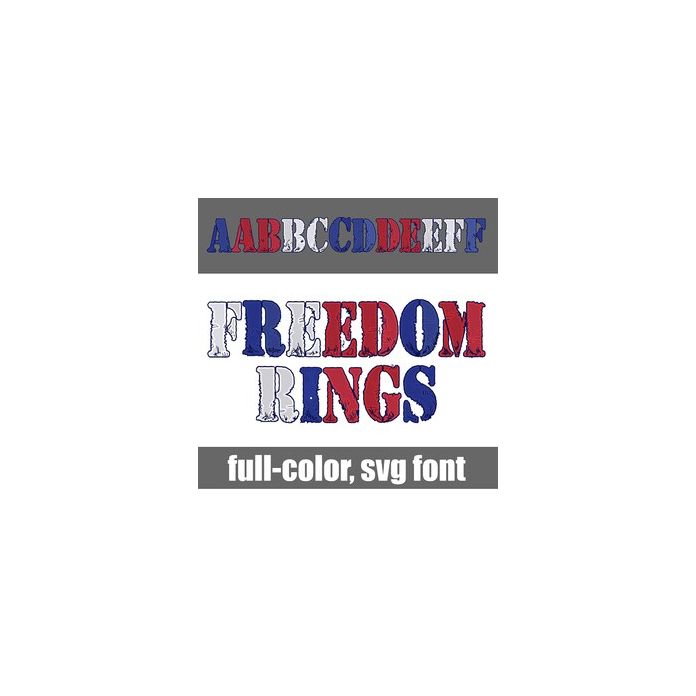
This full-color font features grubby, stenciled type lettering in patriotic colors. There is an alt case w/ additional colors you can access through your system or Silhouette's glyph map.